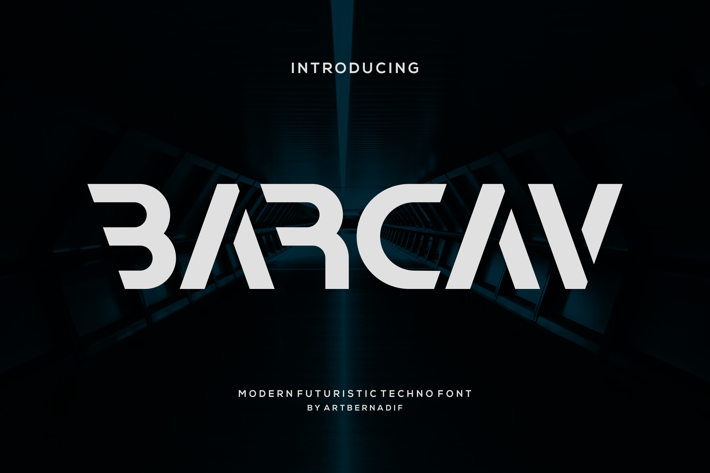
Barcav - Modern Futuristic Techno Font
Introducing our new product Barcav Font Modern Futuristic Techno Font
Barcav Font Modern Font is a bold and authentic display font. The font is suitable for any branding project like logo, t-shirt printing, esport, and many more.
outstanding in a wide range of contexts.
* Barcav Uppercase